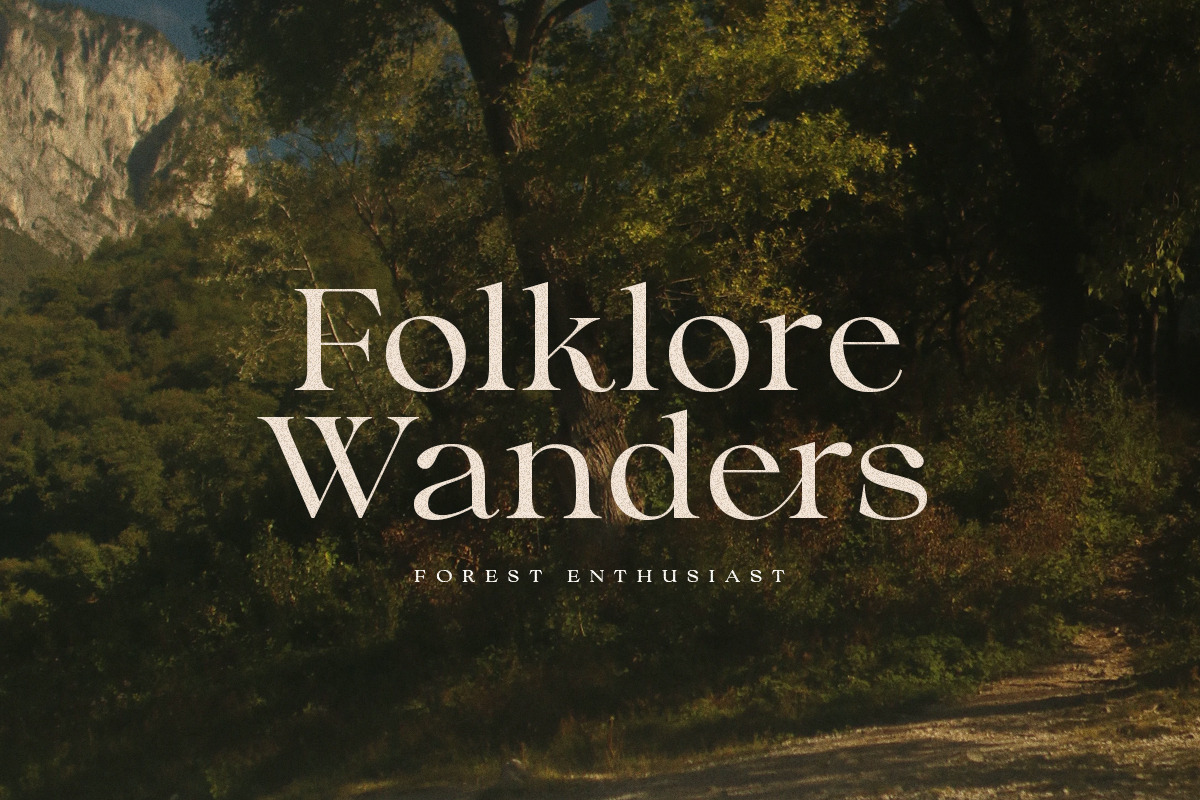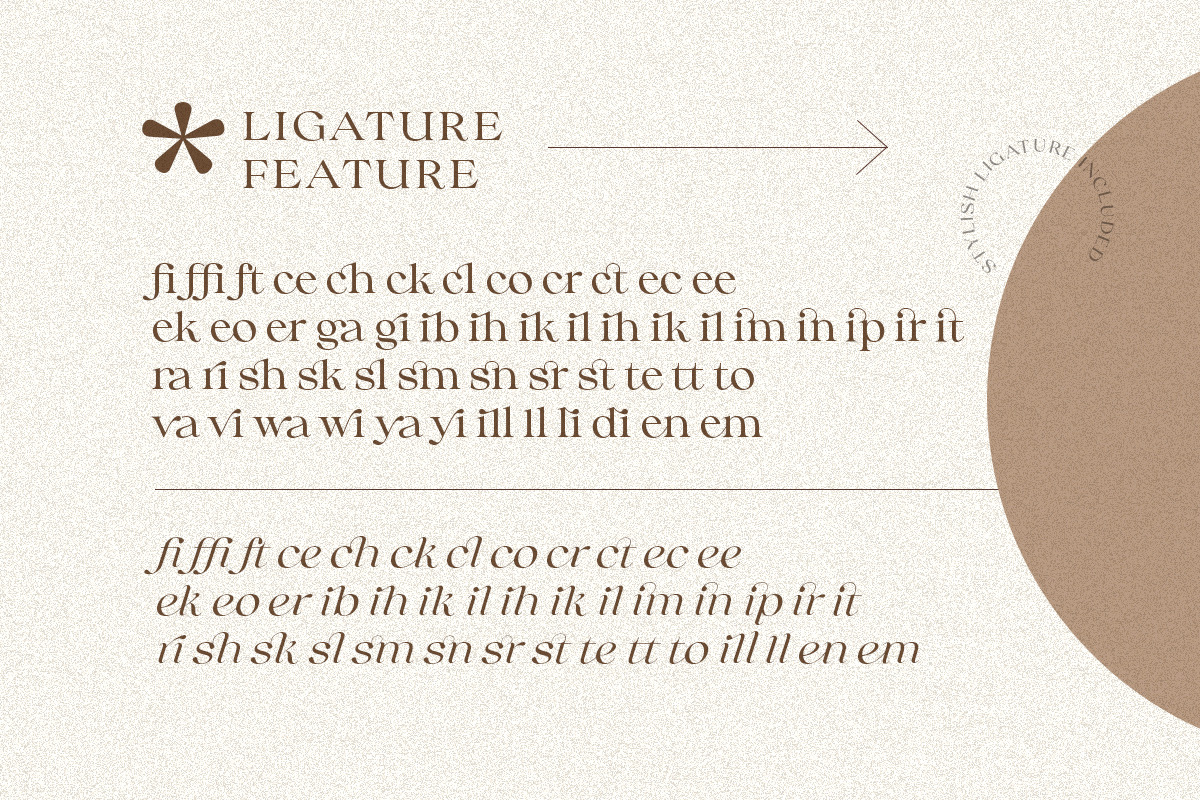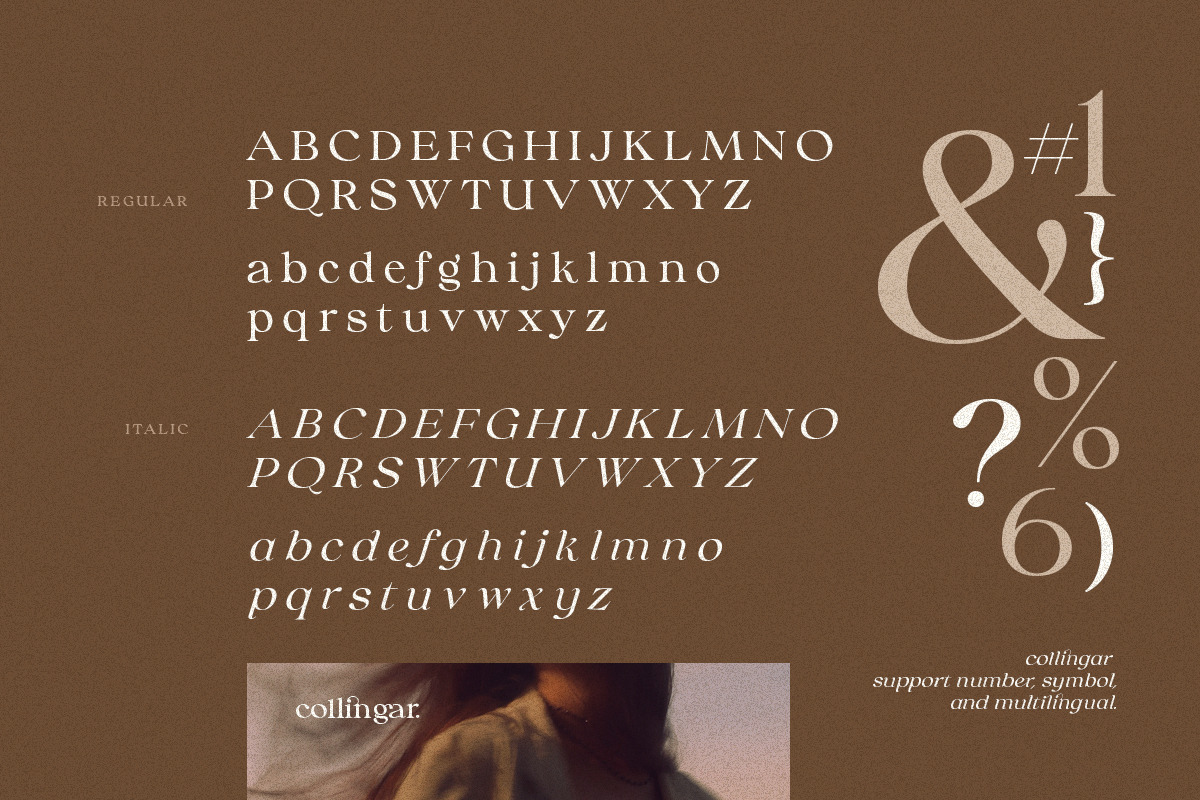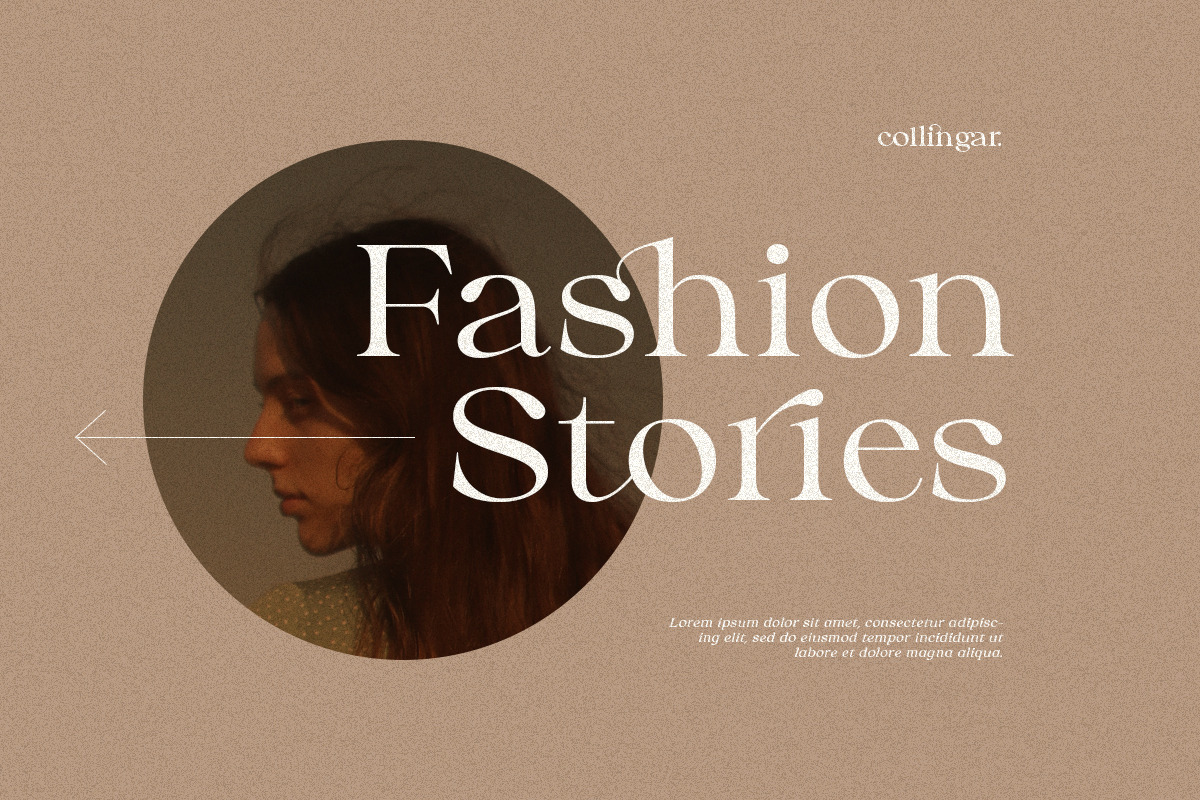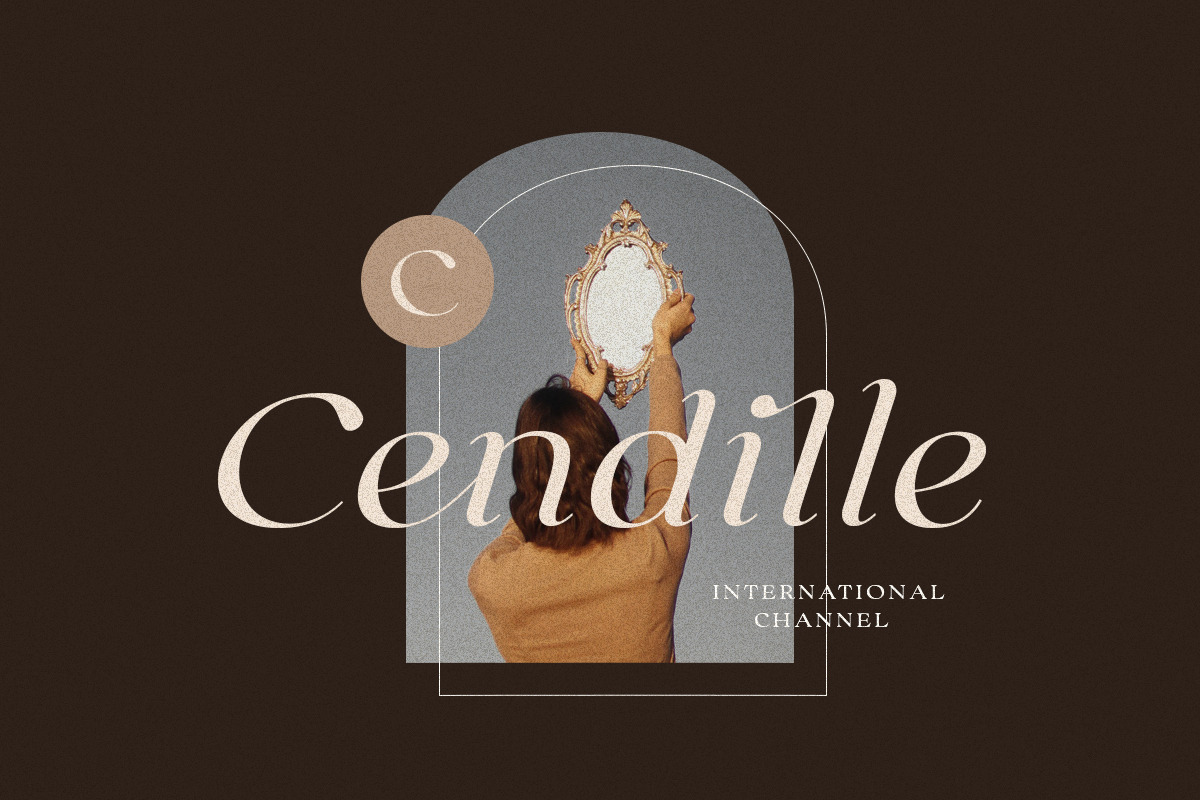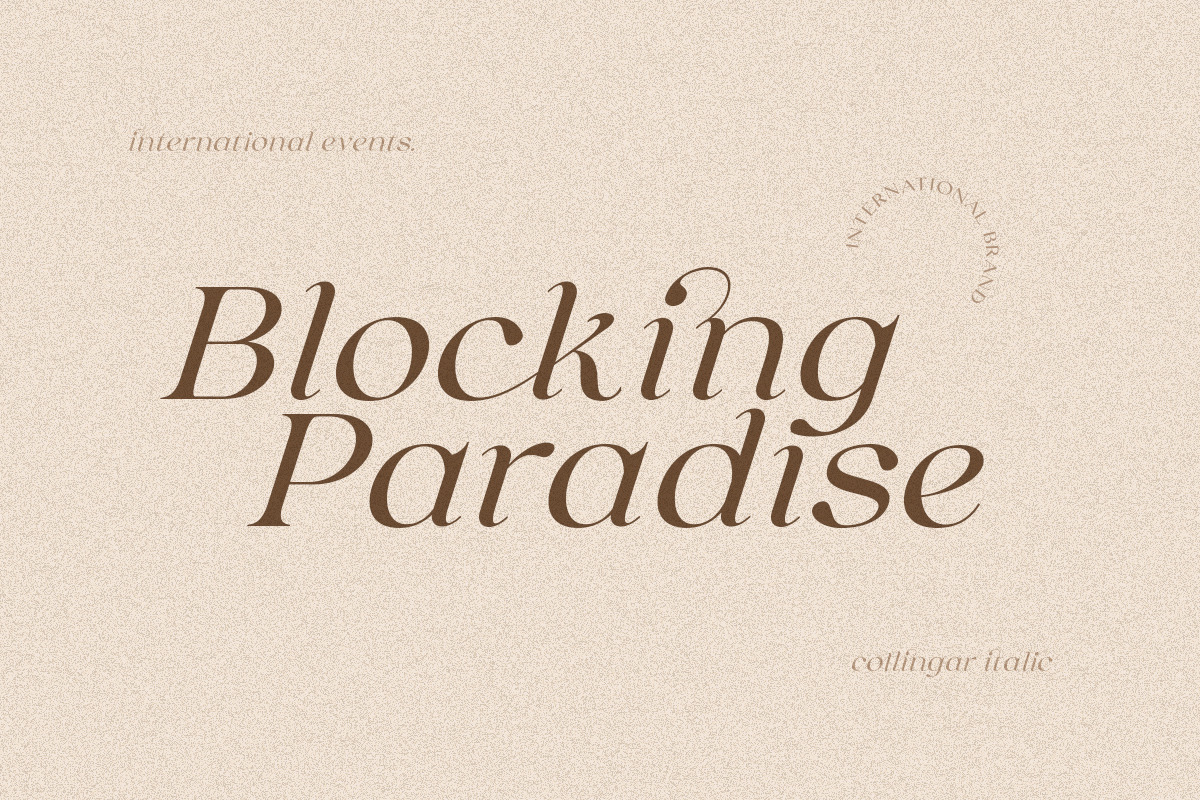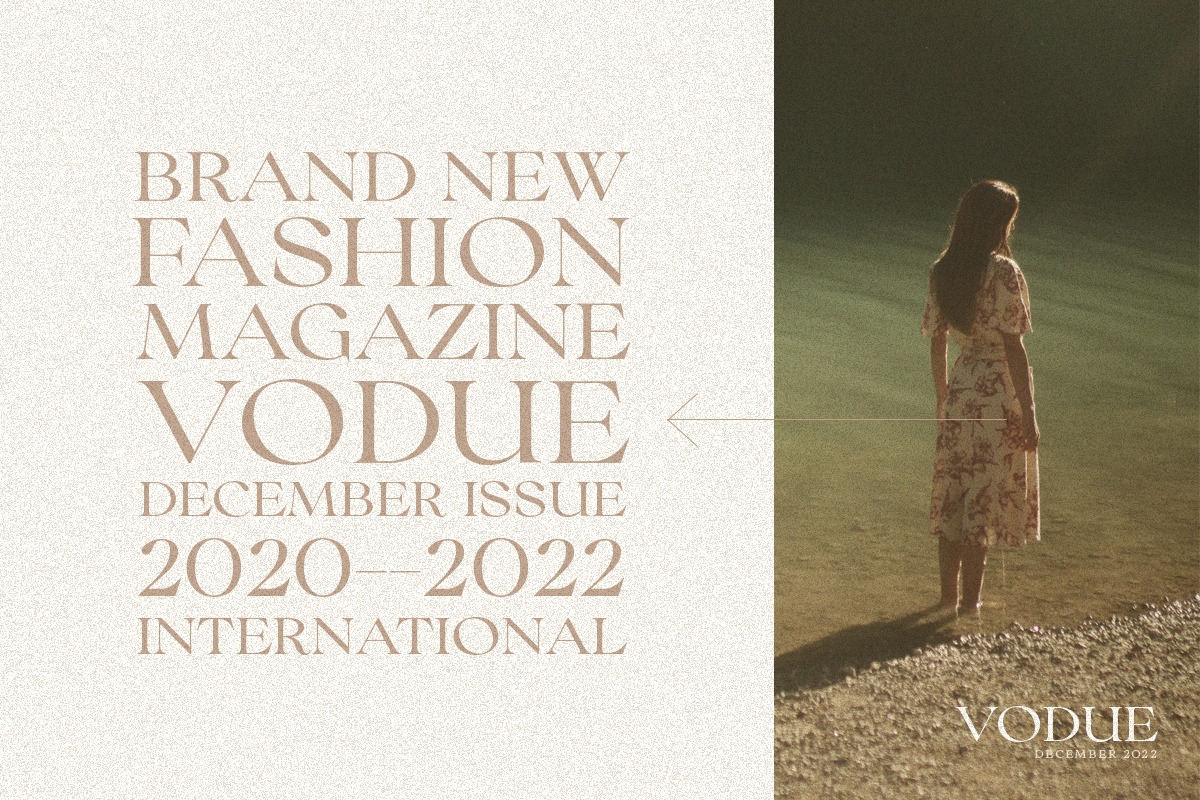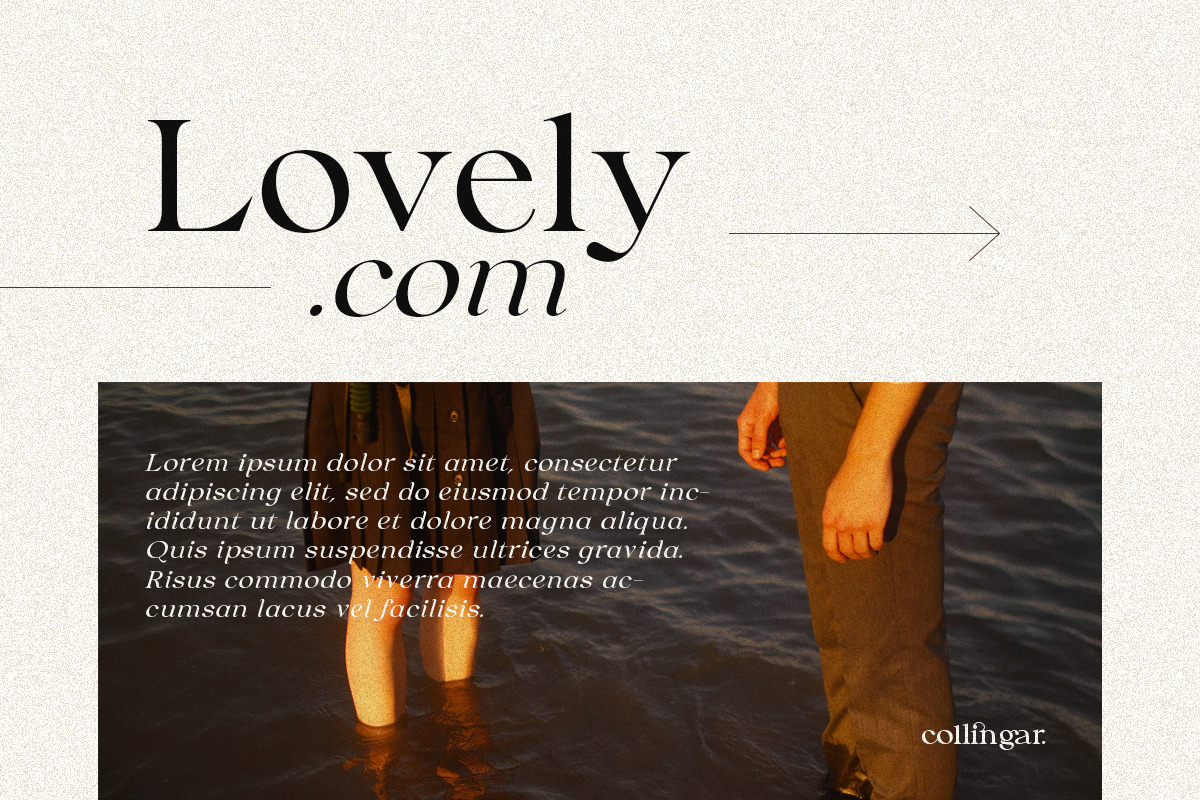
Collingar - Aesthetic Serif
Introducing, Collingar - An Aesthetic Serif Font with italic version!
Collingar is a classic and modern serif with a bunch of ligatures that will make your poster, cover or logo even more stunning and stand out! With italic version that you can use as a complimentary! You can use this font as a complement of your script collections or use this font as a stand alone font for several purposes such as a wedding invitations or even your own branding! This fonts support Multi Language and already PUA Encoded!
- Regular & Italic Version
- Multilingual and PUA Encoded